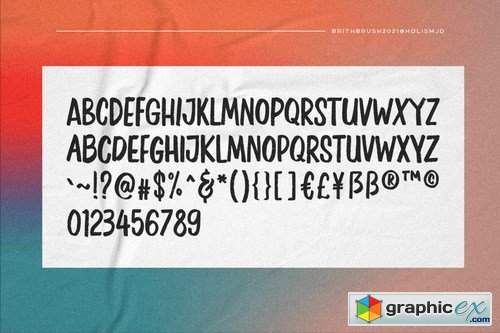
Brith Brush
Brith Brush is handwritten kids brush type, It has a textured brush and a childish style suitable for logos, quotes, book titles and branding.